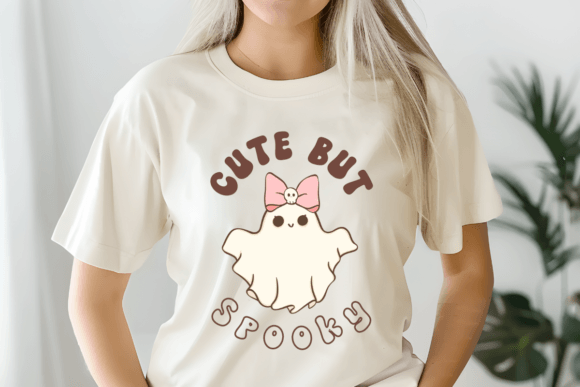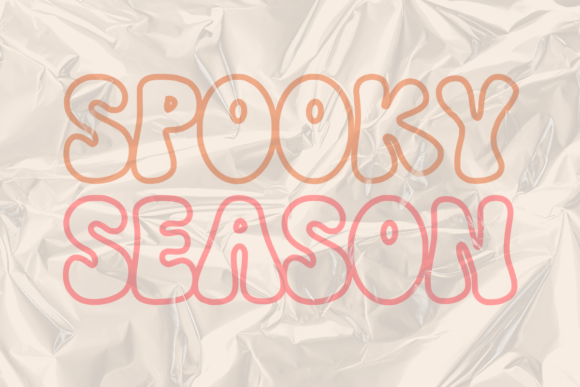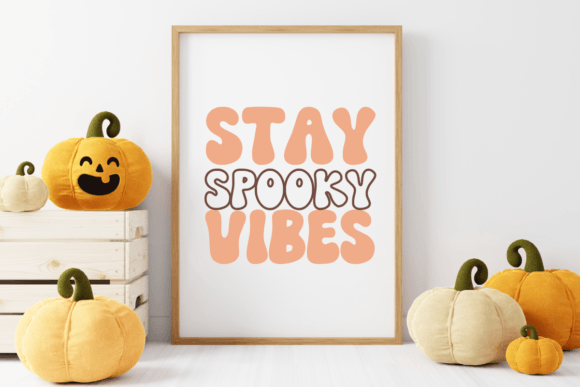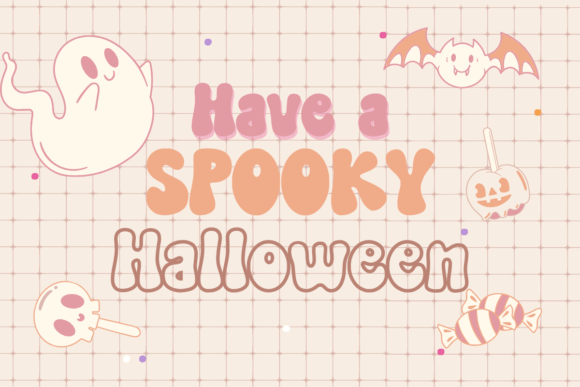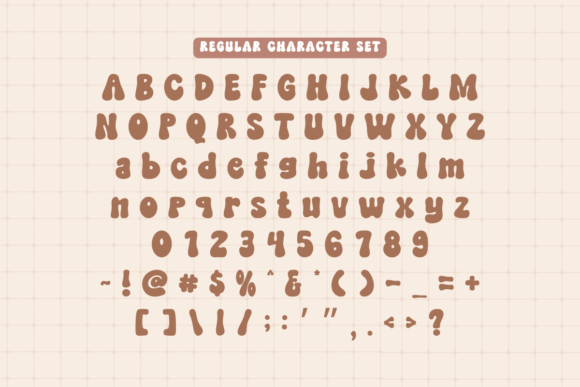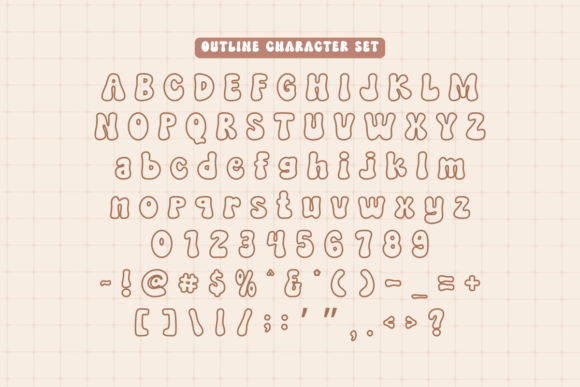
Unleash the Spooky Spirit with Ghost Groovy Font: The Ultimate Halloween Display Font
Are you looking for a font that captures the essence of Halloween? Do you want to add a touch of spookiness and playfulness to your designs? Look no further than Ghost Groovy Font, a cute, bold, and outline groovy display font that’s perfect for a wide range of creative projects. In this article, we’ll dive into the features and benefits of Ghost Groovy Font, and explore how you can use it to elevate your designs.
What is Ghost Groovy Font?
Ghost Groovy Font is a unique and eye-catching display font that’s specifically designed for Halloween-themed projects. Its bold and outline style gives it a groovy vibe that’s sure to grab attention. The font is carefully crafted to be both cute and spooky, making it perfect for a variety of design applications.
Key Features of Ghost Groovy Font
- Bold and Outline Style: Ghost Groovy Font features a bold and outline style that gives it a distinctive look.
- Cute and Spooky: The font is designed to be both cute and spooky, making it perfect for Halloween-themed projects.
- Ready to Use: Ghost Groovy Font is ready to be used in any project, from logotypes to posters and websites.
- Highly Versatile: The font is suitable for a wide range of design applications, including stickers, packaging design, Cricut projects, and more.
Use Cases for Ghost Groovy Font
Ghost Groovy Font is an incredibly versatile font that can be used in a variety of design projects. Here are some ideas to get you started:
- Logotypes and Branding: Use Ghost Groovy Font to create a unique and memorable logotype for your brand.
- Stickers and Packaging Design: Add a touch of spookiness to your stickers and packaging designs with Ghost Groovy Font.
- Cricut Projects: Ghost Groovy Font is perfect for Cricut projects, such as custom vinyl decals and iron-on designs.
- T-Shirts and Apparel: Use Ghost Groovy Font to create eye-catching designs for t-shirts, hoodies, and other apparel.
- Posters and Magazines: Add a touch of Halloween spirit to your posters and magazines with Ghost Groovy Font.
- Websites and Social Media: Use Ghost Groovy Font to create engaging and spooky content for your website or social media channels.
Benefits of Using Ghost Groovy Font
Ghost Groovy Font offers a range of benefits for designers and crafters. Here are a few:
- Save Time: With Ghost Groovy Font, you can save time and effort in creating custom designs from scratch.
- Stand Out: The unique and eye-catching design of Ghost Groovy Font will help your designs stand out from the crowd.
- Easily Customizable: Ghost Groovy Font is highly customizable, making it easy to adjust to fit your design needs.
Ghost Groovy Font is a unique and versatile display font that’s perfect for Halloween-themed projects. Its bold and outline style, combined with its cute and spooky vibe, make it an excellent choice for a wide range of design applications. Whether you’re a designer or crafter, Ghost Groovy Font is a great addition to your font library. So why not give it a try and unleash the spooky spirit in your designs?
With its ease of use, high versatility, and eye-catching design, Ghost Groovy Font is sure to become a favorite among designers and crafters. So don’t wait – get creative with Ghost Groovy Font today and add a touch of Halloween magic to your designs!